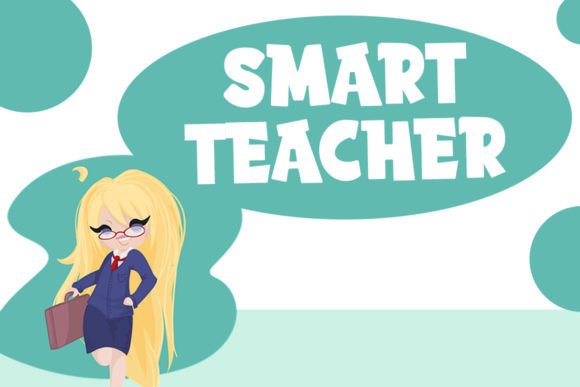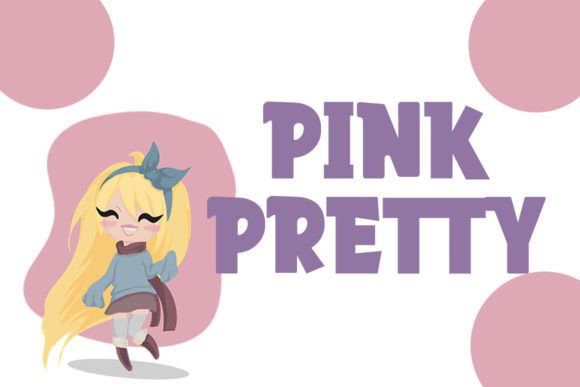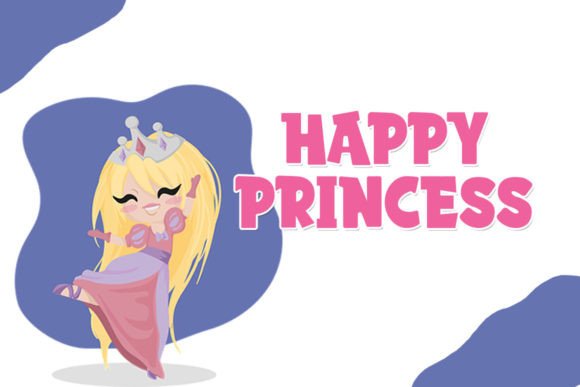
Introduction to Jeanuh Font
Have you ever been working on a creative project and suddenly, you need the perfect font to bring it all together? The right font can make all the difference, and that’s where the Jeanuh Font comes in. This beautiful and sweet font is a game-changer for designers looking to add a touch of elegance and sophistication to their work.
With its fresh, clean design, the Jeanuh Font is perfect for a wide range of projects, from formal business presentations to informal social media graphics. Its transparent background and high-quality design make it a valuable resource for any designer looking to take their work to the next level.
Key Features of Jeanuh Font
- High-quality, professional font suitable for creative projects with a transparent background option, allowing for seamless integration with various design elements.
- Features a unique, modern design that can add a touch of elegance to any project, from logos to typography-based art.
- Comes in a single weight, ideal for projects where a clean and simple font is required, such as brochures, business cards, and infographics.
Honest Review: Jeanuh Font
The Jeanuh Font is a beautiful, elegant font that’s perfect for a variety of applications. One of the things that stands out about this font is its versatility – it’s just as great for digital projects as it is for print materials. ✨ I love how easy it is to read, even at small font sizes.
- High quality, transparent background
- Perfect for creative projects, both digital and print
One thing to keep in mind is that the Jeanuh Font is a bit on the heavier side, which can be a limitation for certain projects. ⚠️ If you’re working on a project that requires a lot of text to be displayed in a small space, you may want to consider a lighter font option.
Overall, I’m really impressed with the Jeanuh Font. It’s a great addition to any designer’s toolkit and I’d definitely recommend it to anyone looking for a high-quality, elegant font.
Common Use Cases for Jeanuh Font
Here are some common use cases for Jeanuh Font:
- Graphic design projects, such as logos and brochures.